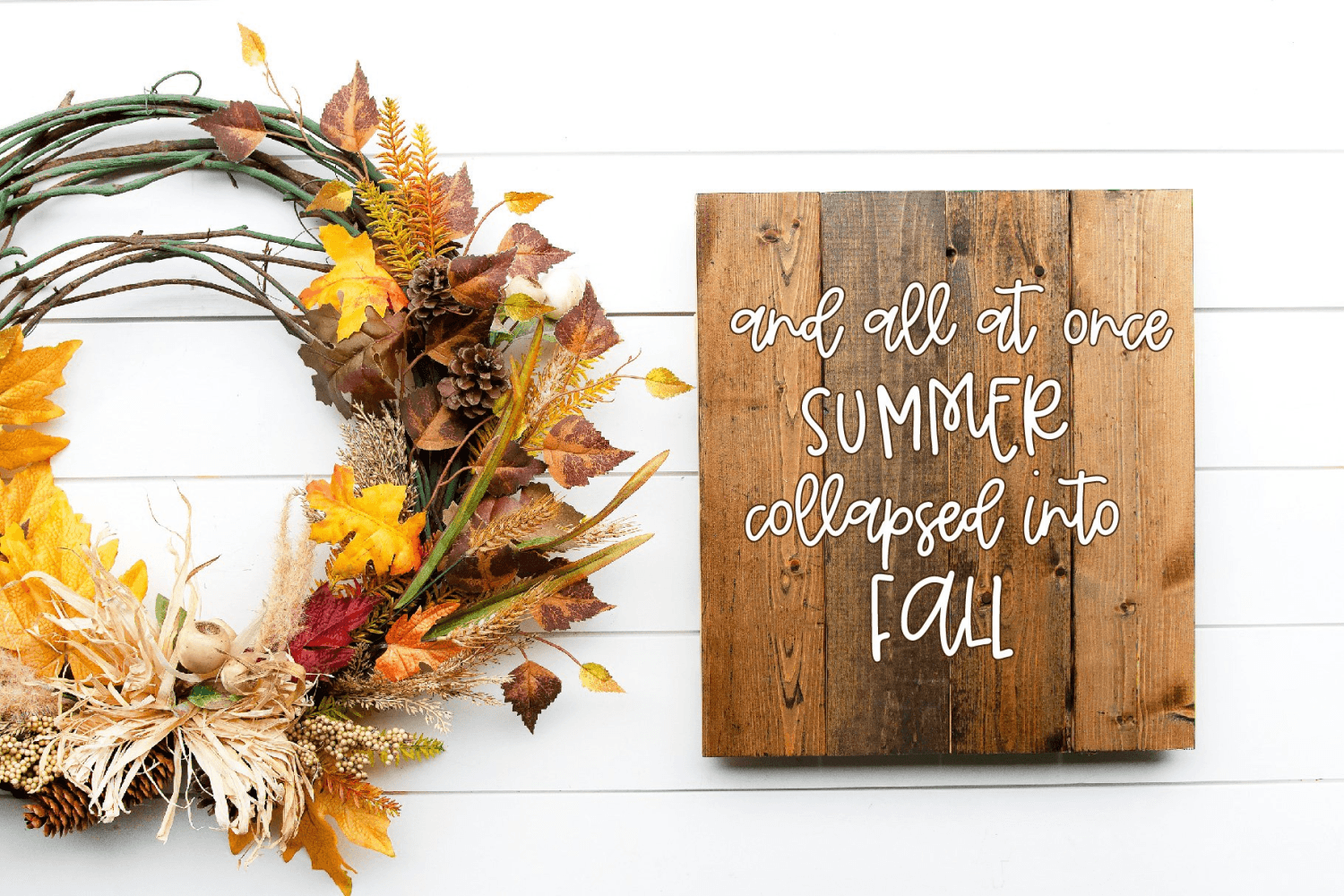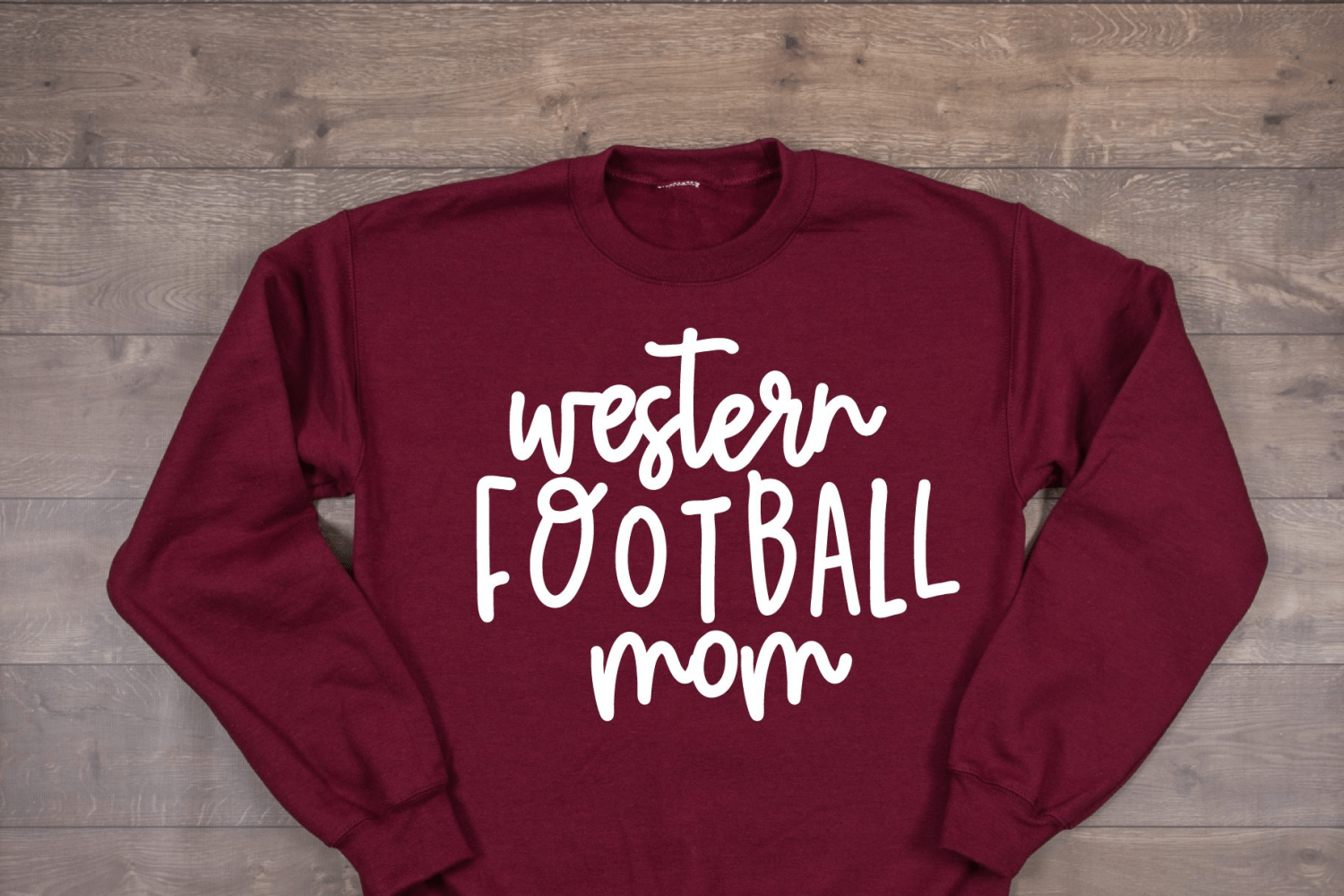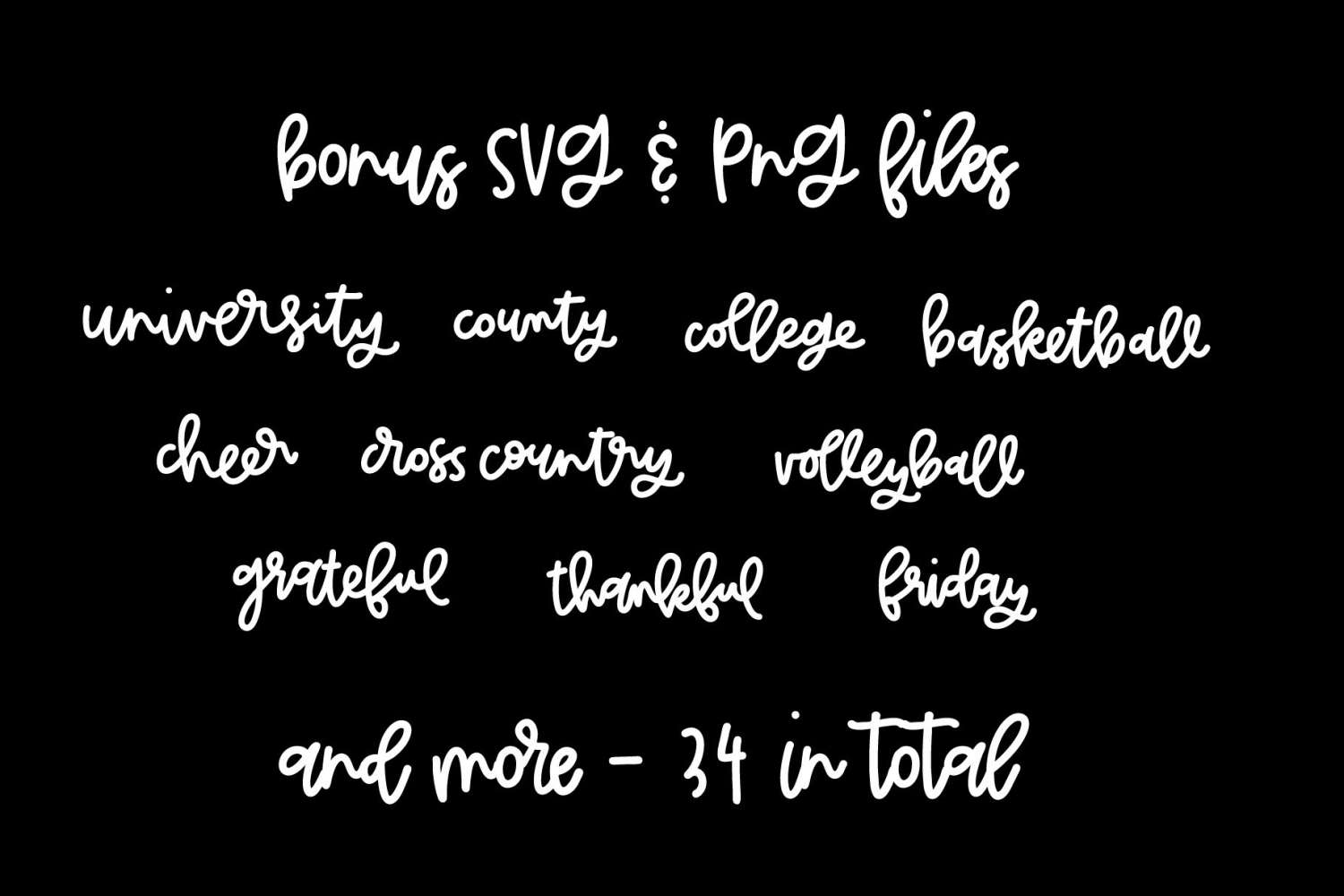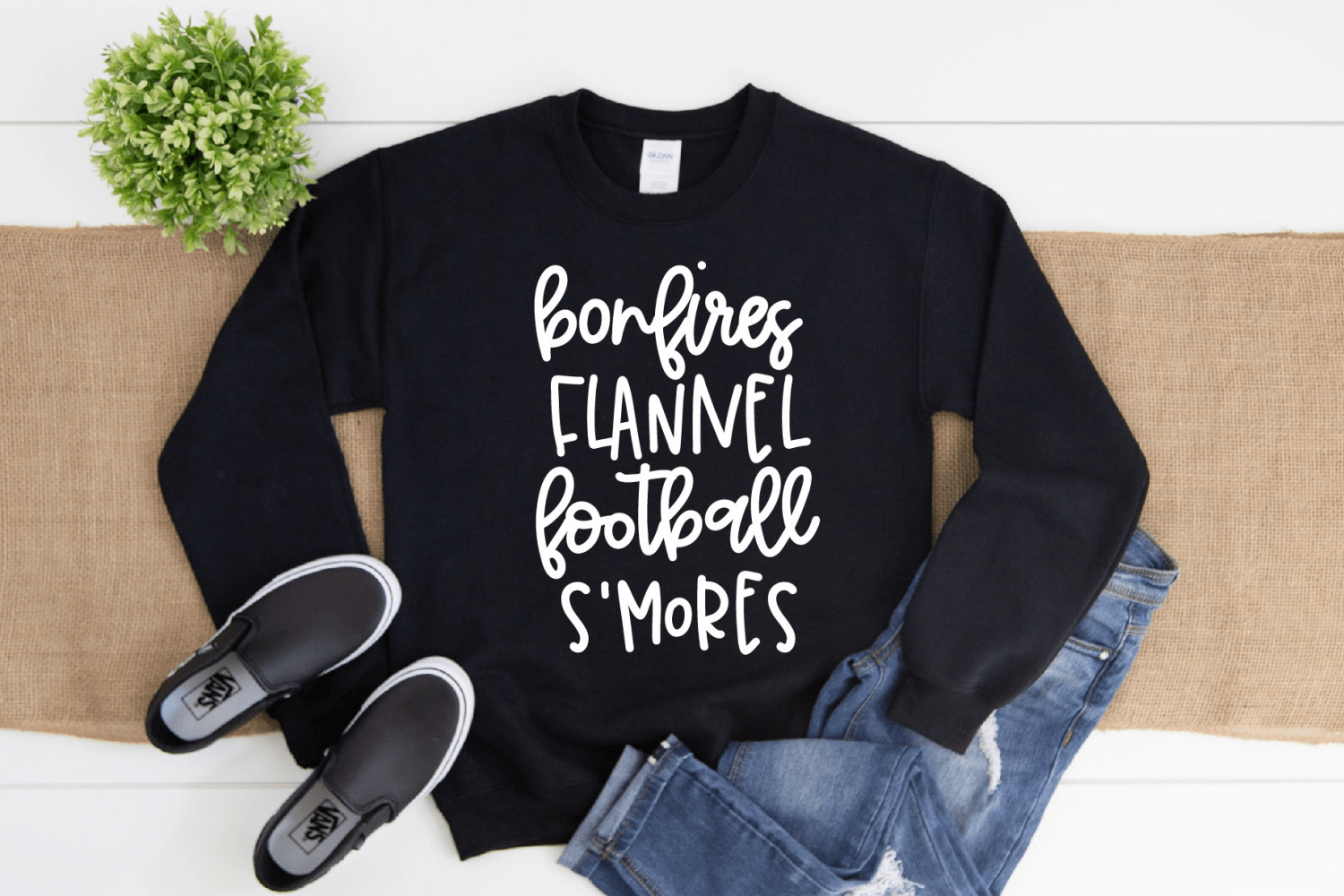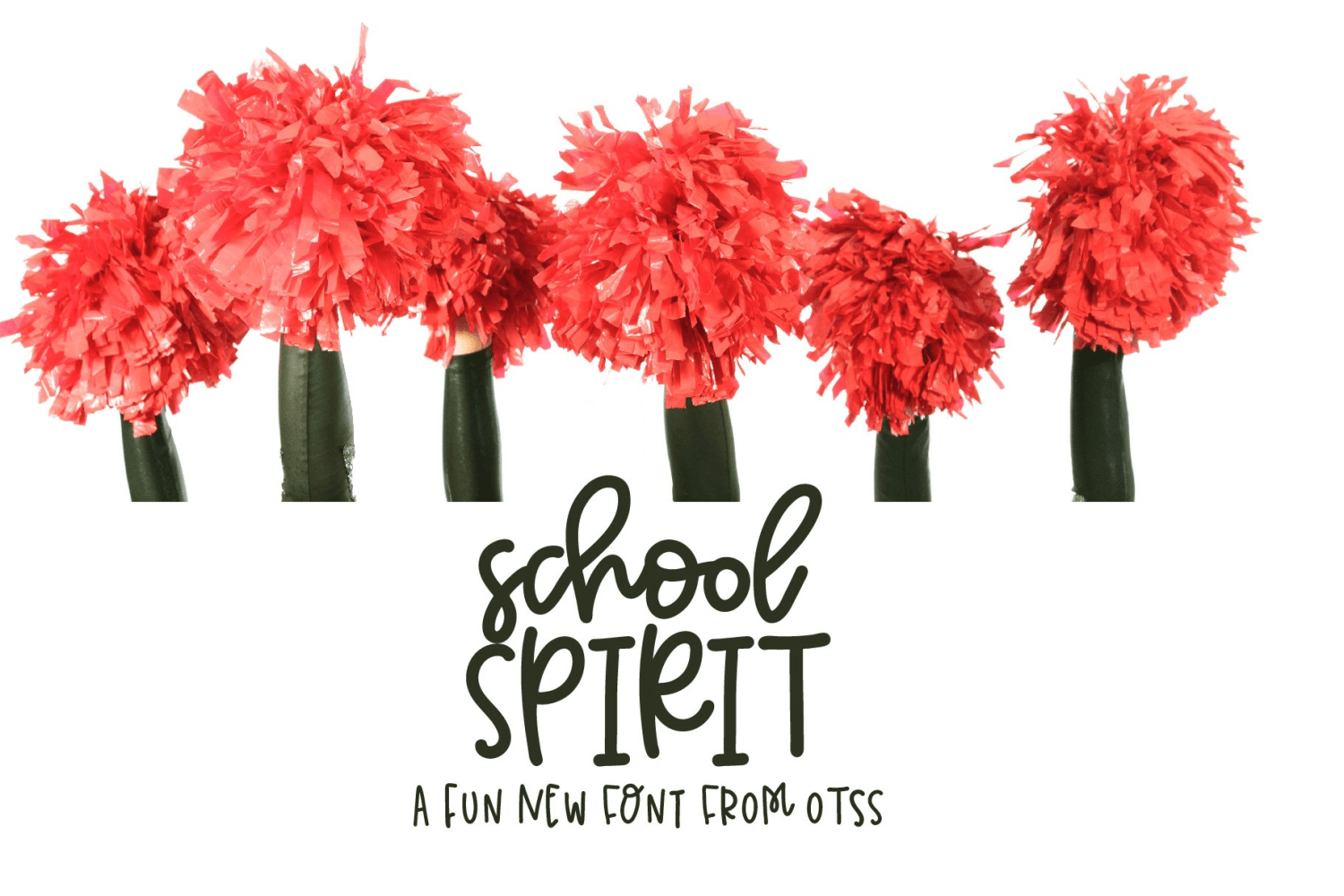
School Spirit
About School Spirit
Say hello to School Spirit! This font was created with fans and crafters alike! Includes both script and two uppercase lettersets as well as 34 unique SVG designs perfect for supporting your favorite team!